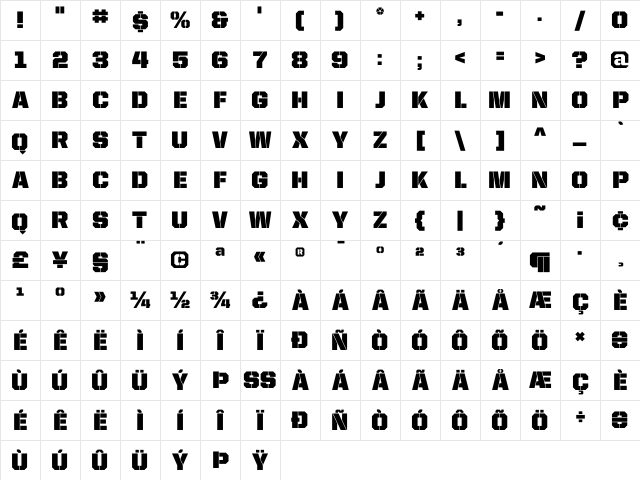
United Sans Reg Stencil
Style: Stencil
Foundry: House Industries
Designer: Tal Leming
Design Context for United Sans Reg
United Sans Reg borrows the utilitarian aesthetic of stencil lettering, with its characteristic cutaways and no-frills construction lending an industrial edge.
Pro Tip: Use United Sans Reg at large sizes on packaging, posters, or apparel where the stencil cutaways read clearly. Avoid small sizes where those gaps become visual noise.